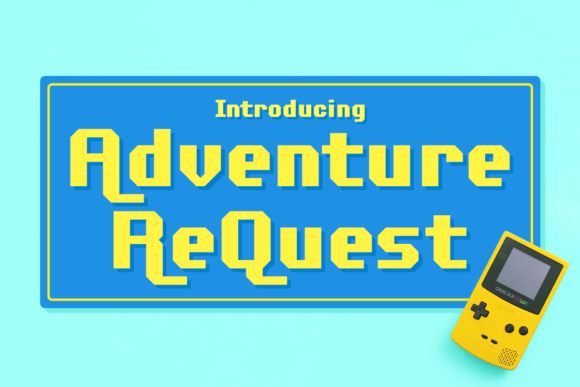
Discover the Thrill of Adventure ReQuest Font
Have you ever found yourself brainstorming a new project, surrounded by scribbled notes, scattered ideas, and a hint of creative chaos? That’s exactly where the magic happens – when our minds are free to explore and our imagination knows no bounds. It’s in these moments that we stumble upon the perfect font to match our vision, and that’s where Adventure ReQuest Font comes in.
Adventure ReQuest Font is a delightful, playful typeface designed to add a touch of excitement to any project. Whether you’re crafting a children’s book, designing a video game, or creating a fun advertisement, this font is sure to bring your ideas to life. For designers, having a versatile font like Adventure ReQuest Font in their toolkit is invaluable, allowing them to experiment with new styles and push the boundaries of creativity.
Adventure ReQuest Font Key Features
- Unique Characteristics: The font features a unique blend of fantasy and adventure elements, making it perfect for games, fantasy novels, and other related projects.
Adventure ReQuest Font Review
I recently had the chance to work with the Adventure ReQuest font, and I must say it’s a unique addition to any design project. ✨ Here are a few things that stood out to me:
- Its adventurous and playful vibe makes it perfect for projects that need a touch of excitement.
- The font’s bold and chunky design holds up well in larger sizes, making it great for headings and titles.
- The Adventure ReQuest font has a wide range of characters, including many special characters and symbols.
- The font’s irregular shape and bold style can make it difficult to read in smaller sizes or when used for large blocks of text.
- The font’s adventurous feel may not be suitable for all types of projects, particularly those that require a more formal or professional tone.
Overall, I think the Adventure ReQuest font is a great addition to any designer’s toolkit. While it may not be the best choice for every project, it’s definitely a fun and versatile font that can add some excitement to your designs.
For optimal results, use the Adventure ReQuest Font in conjunction with bold or italic text to add emphasis.
The Adventure ReQuest Font is ideal for:
Designing fantasy or adventure-themed projects.
Creating bold and eye-catching headings or titles.
Adding a touch of whimsy and playfulness to your designs.